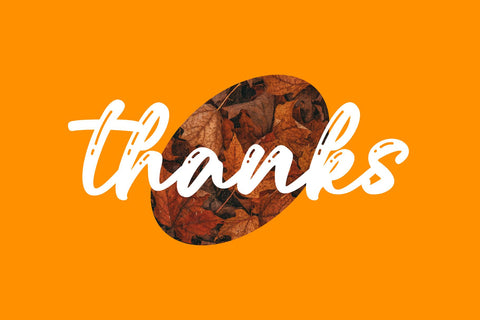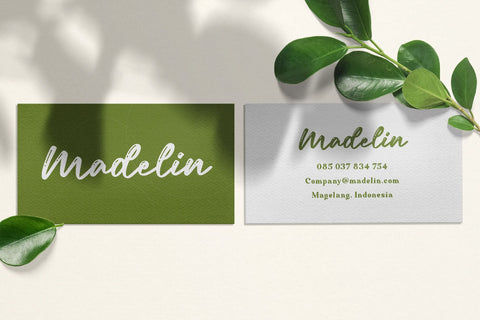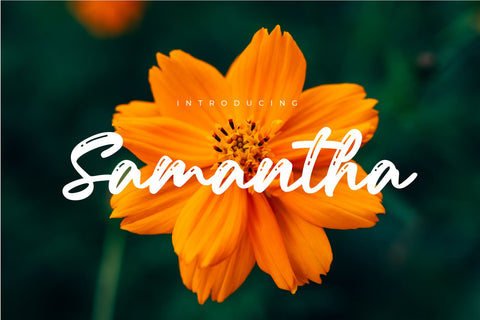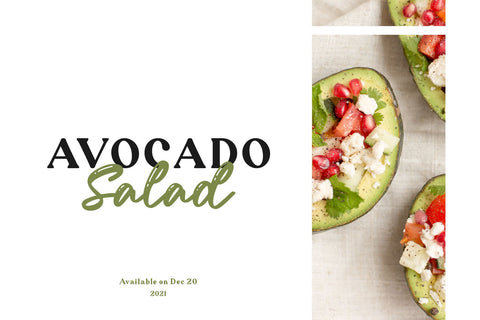
Samantha Script Font
Samantha is lovely handwritten font with sweet highlight in every letter. this font has concept and easy to apply for a variety of your design project.